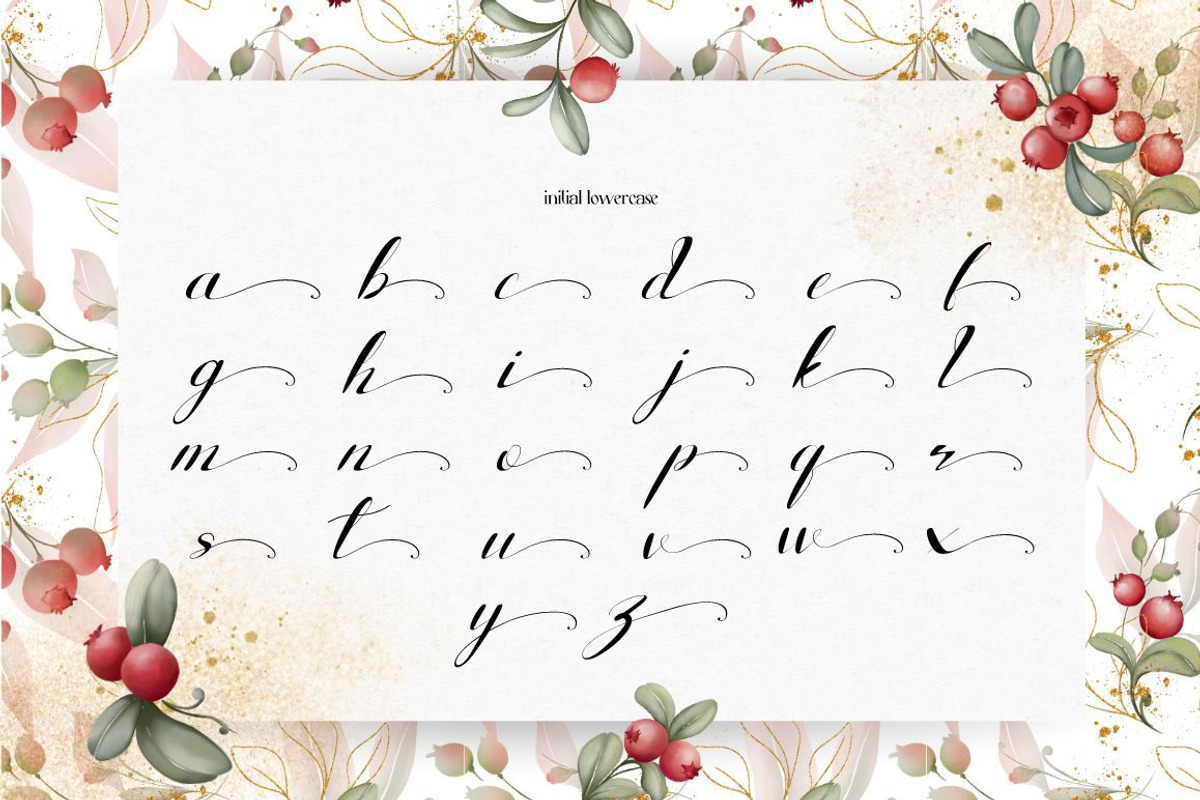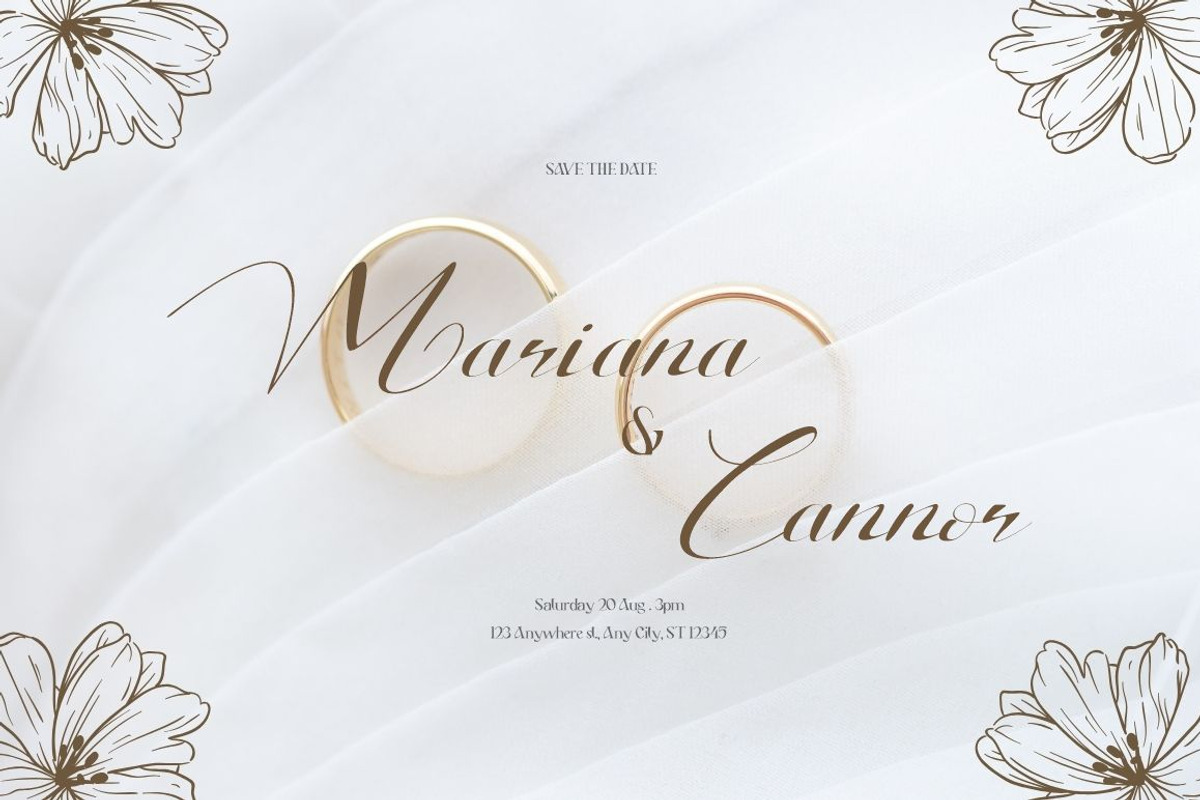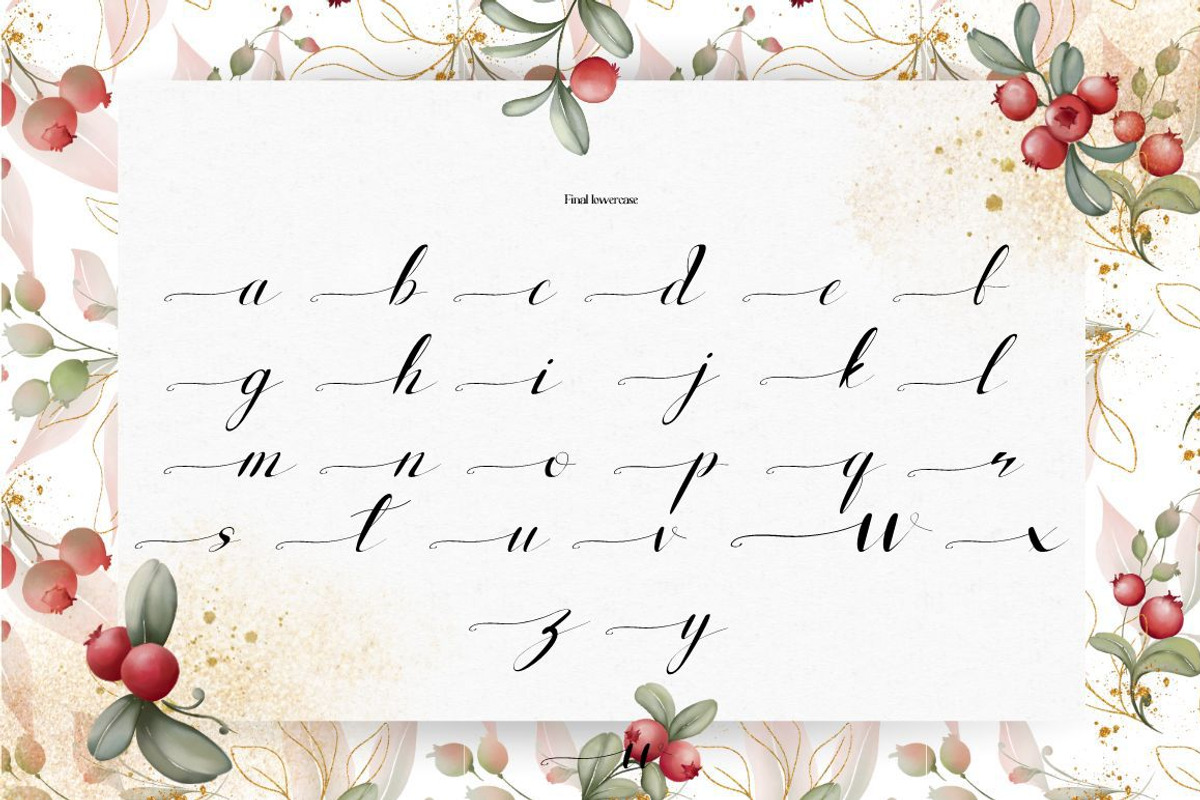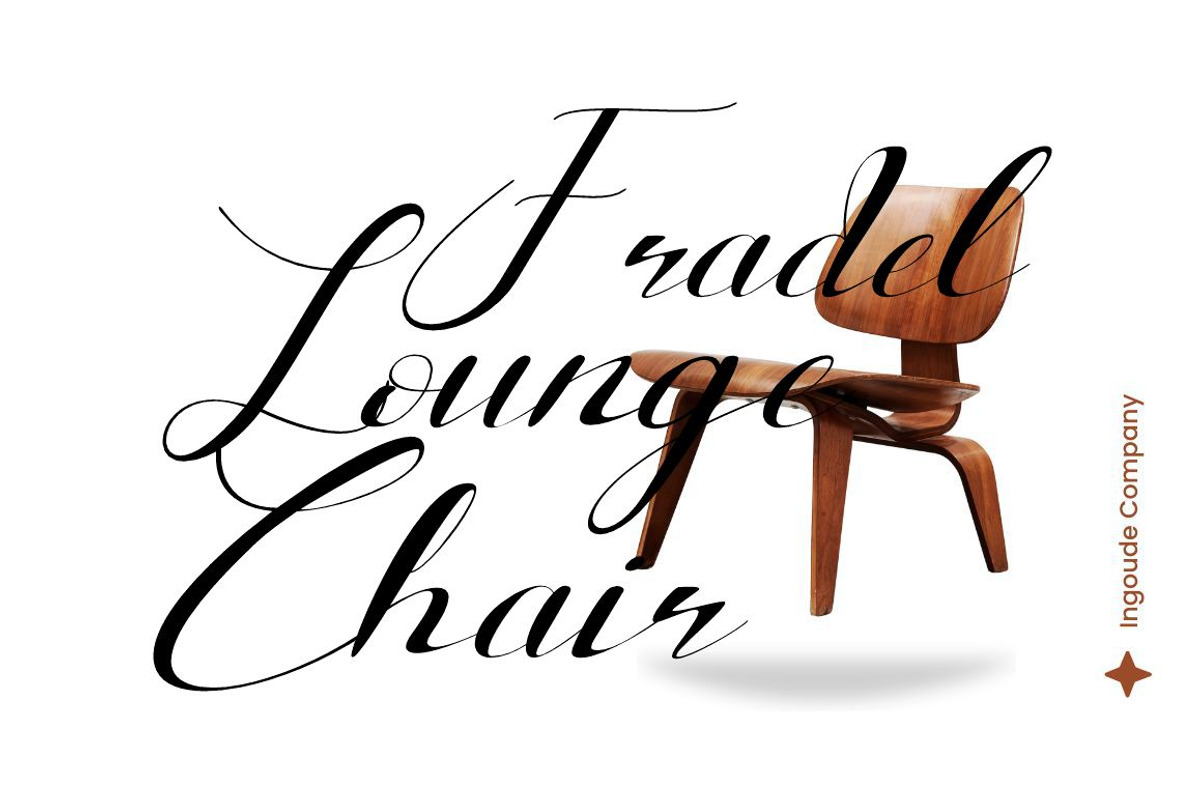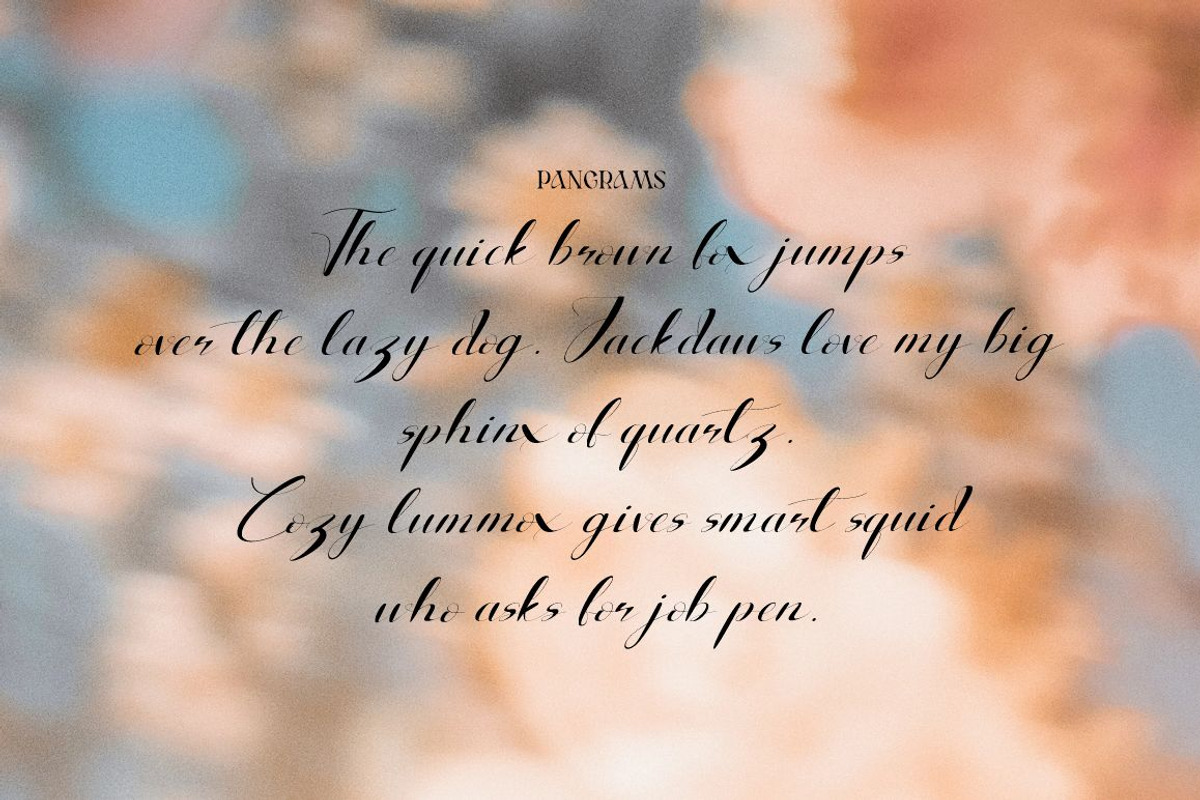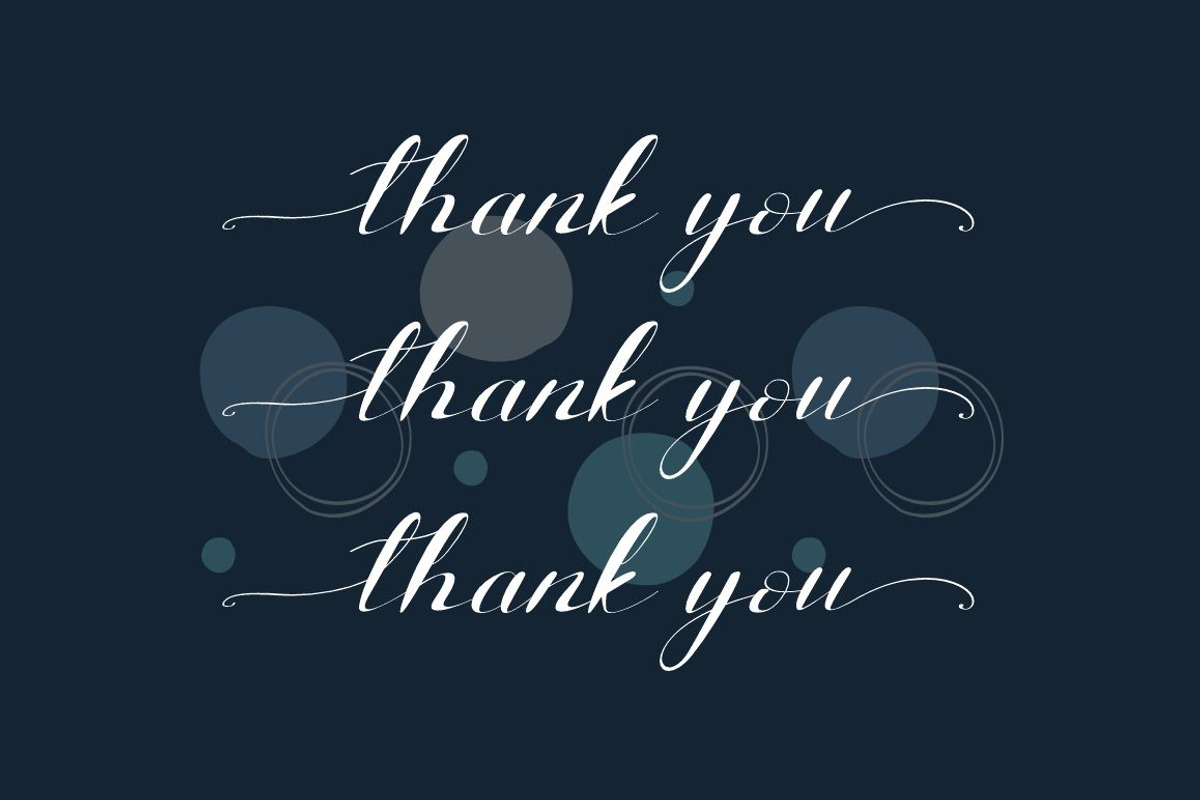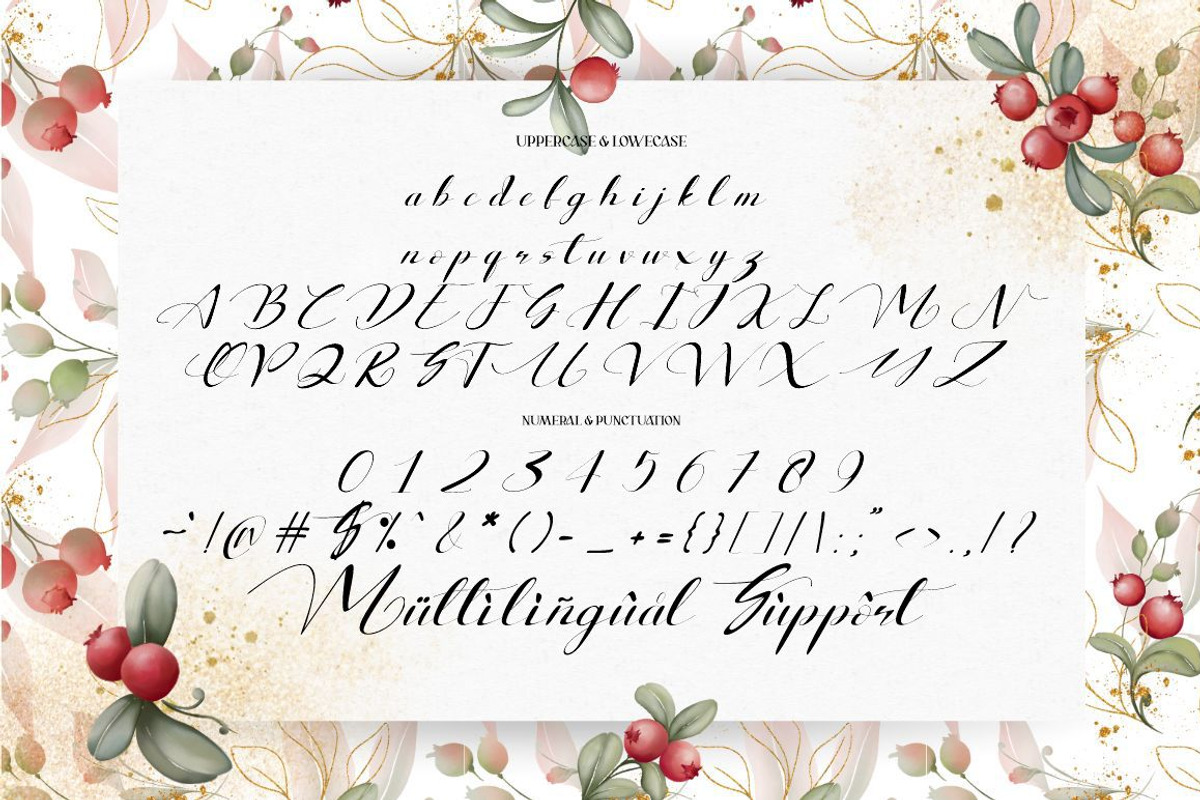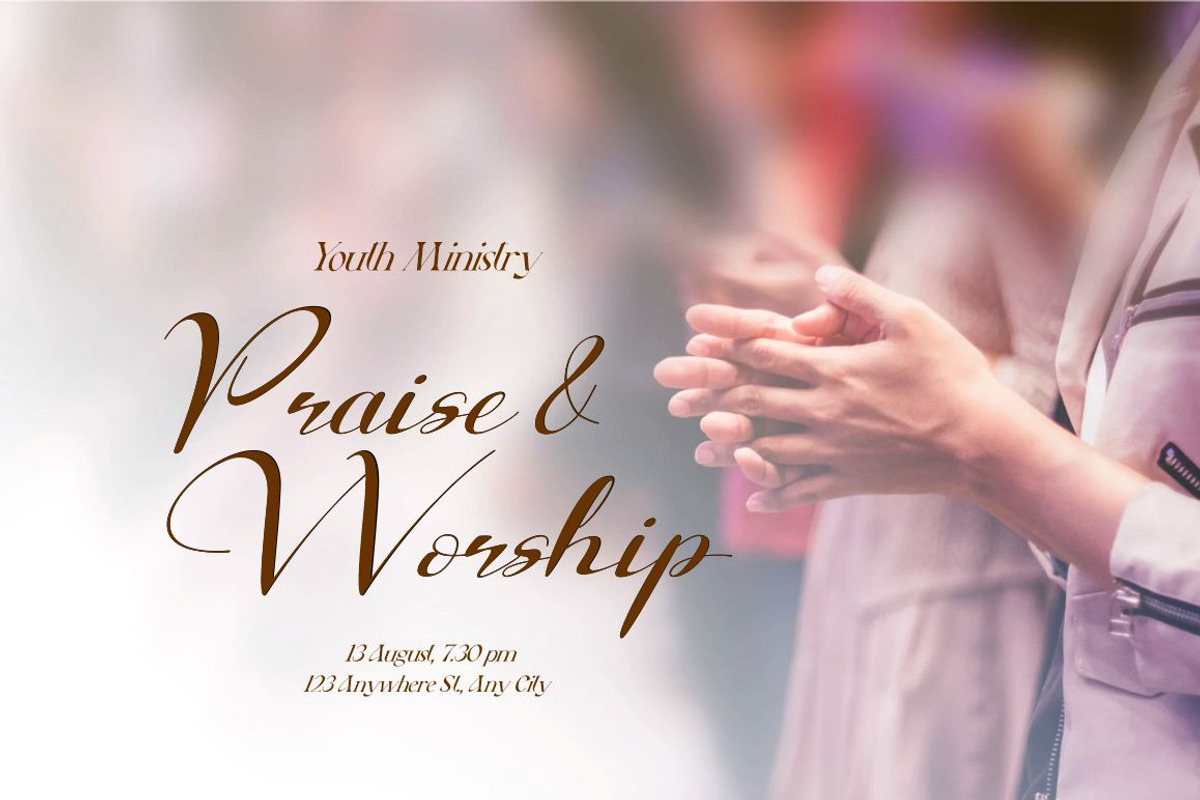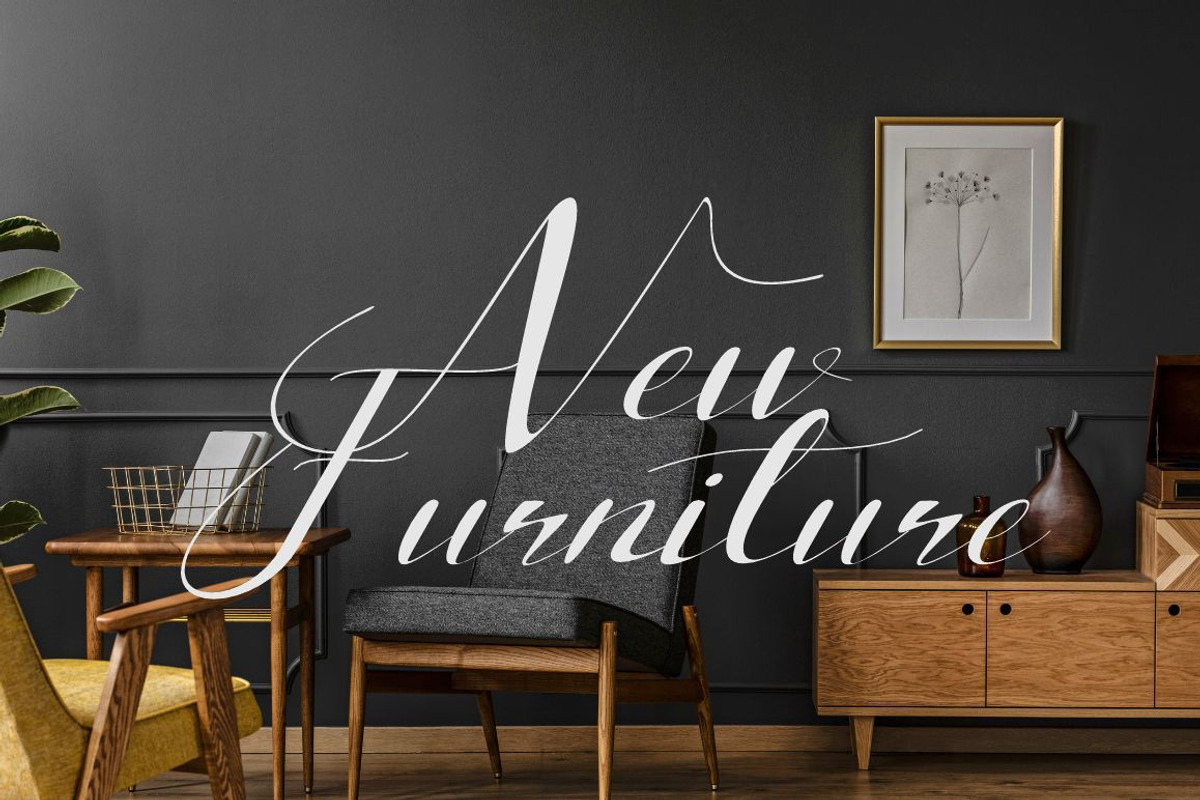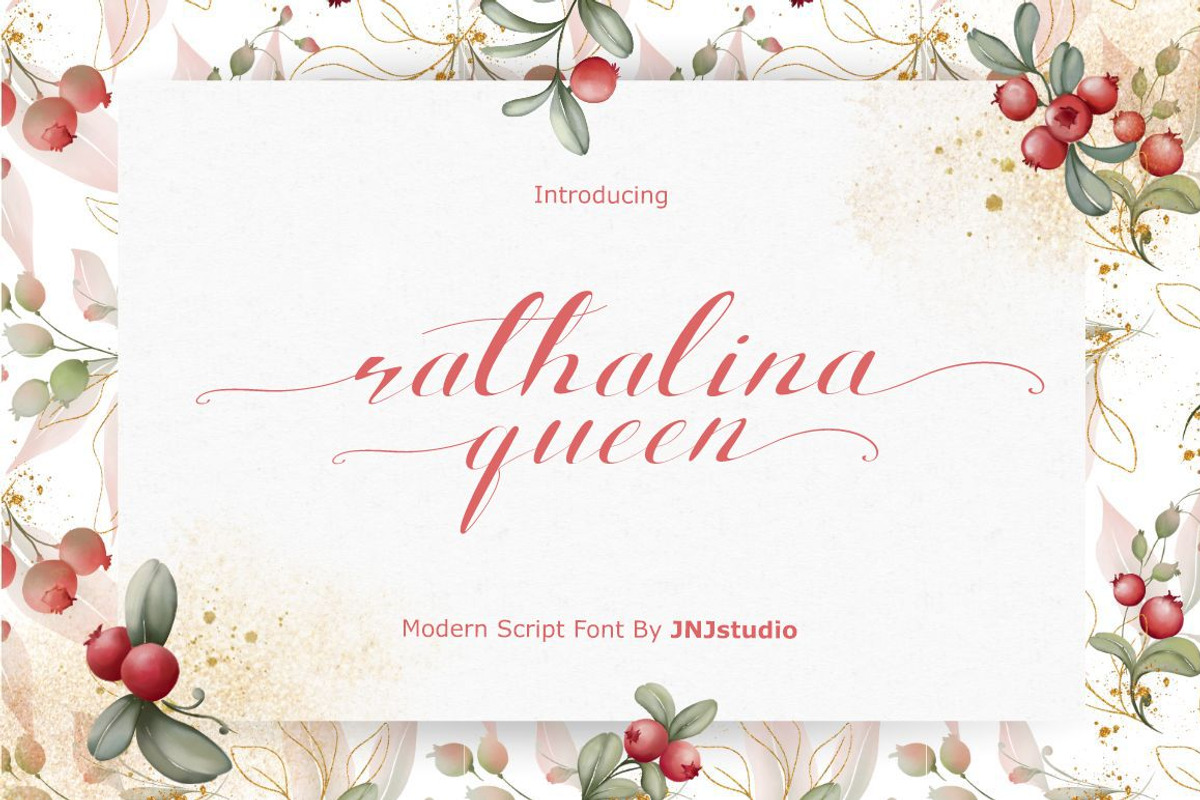
Rathalina Queen Modern Script
Introducing "Rathalina Queen" is a sophisticated and elegant modern script font that exudes luxury and charm. With its flowing lines and smooth curves, this font is designed to capture attention while remaining graceful and refined. Perfect for branding, invitations, logos, and high-end fashion, Rathalina Queen combines classic calligraphy with a contemporary touch. The delicate swashes and intricate details make it an ideal choice for any project requiring a blend of beauty and modernity. Its versatile characters provide a balance between readability and artistry, making it suitable for both formal and creative designs.